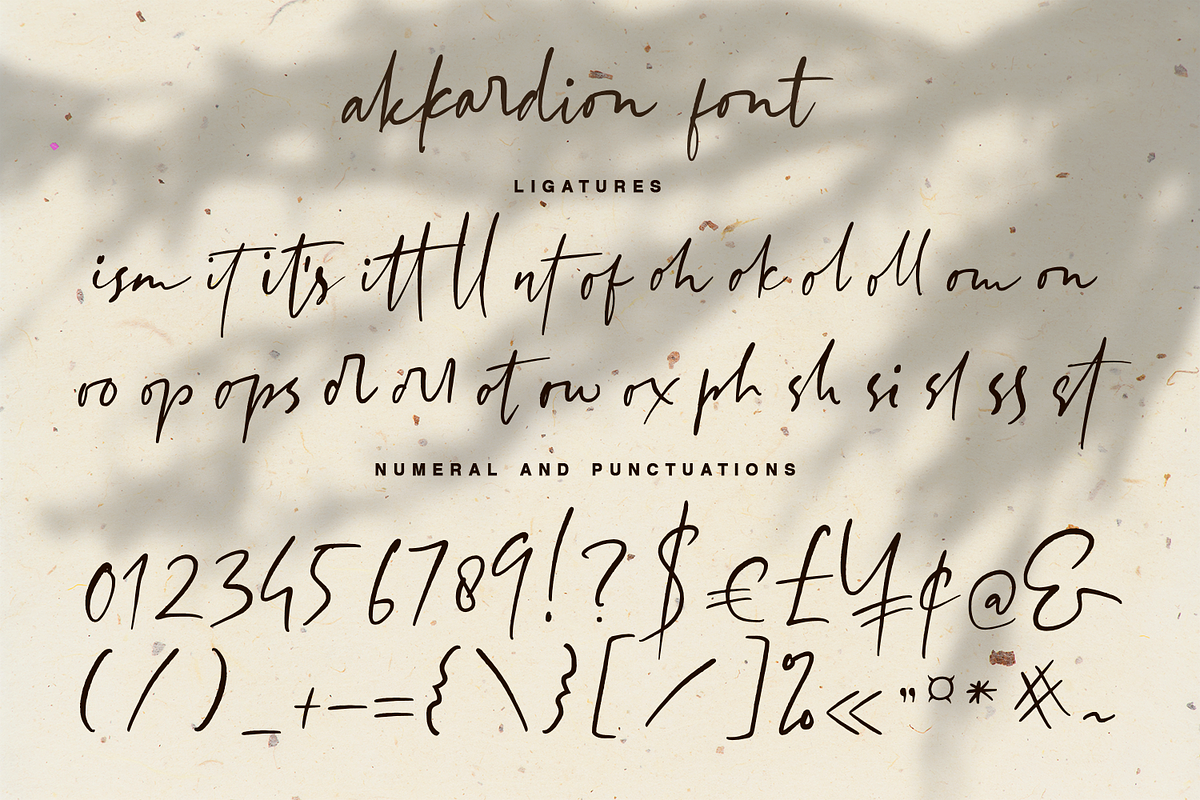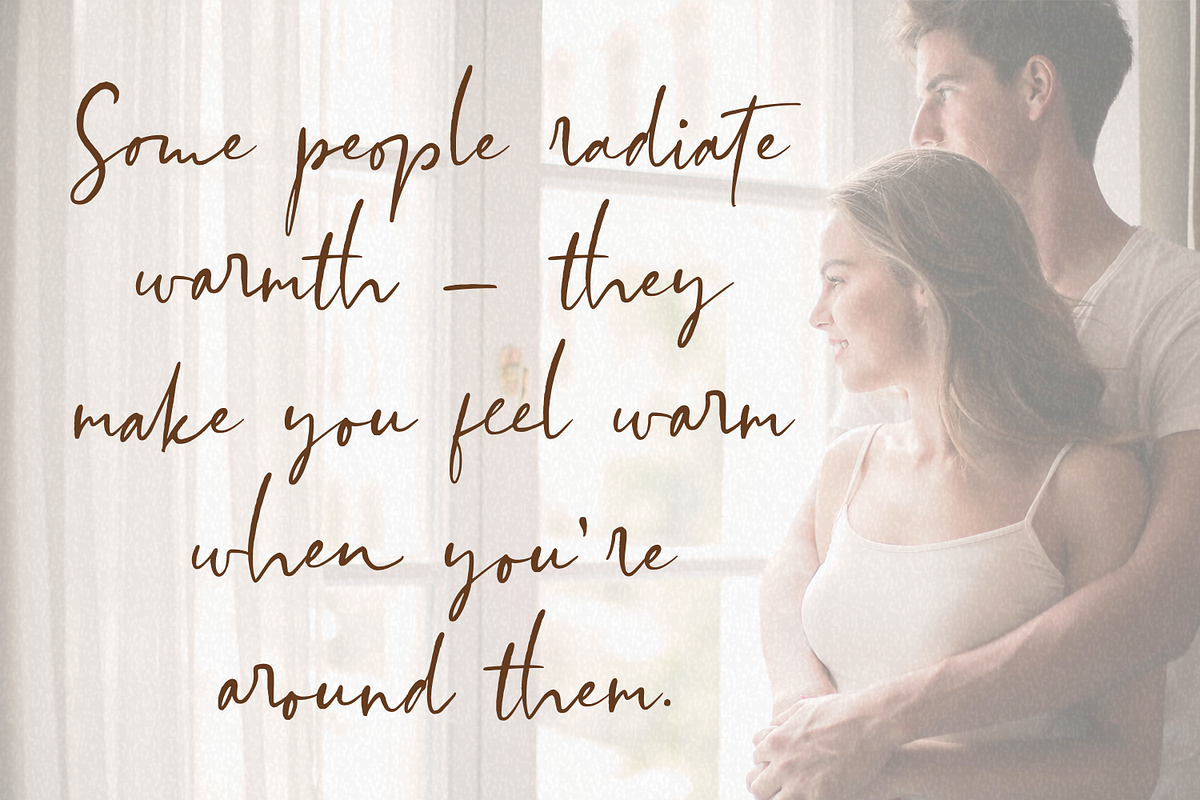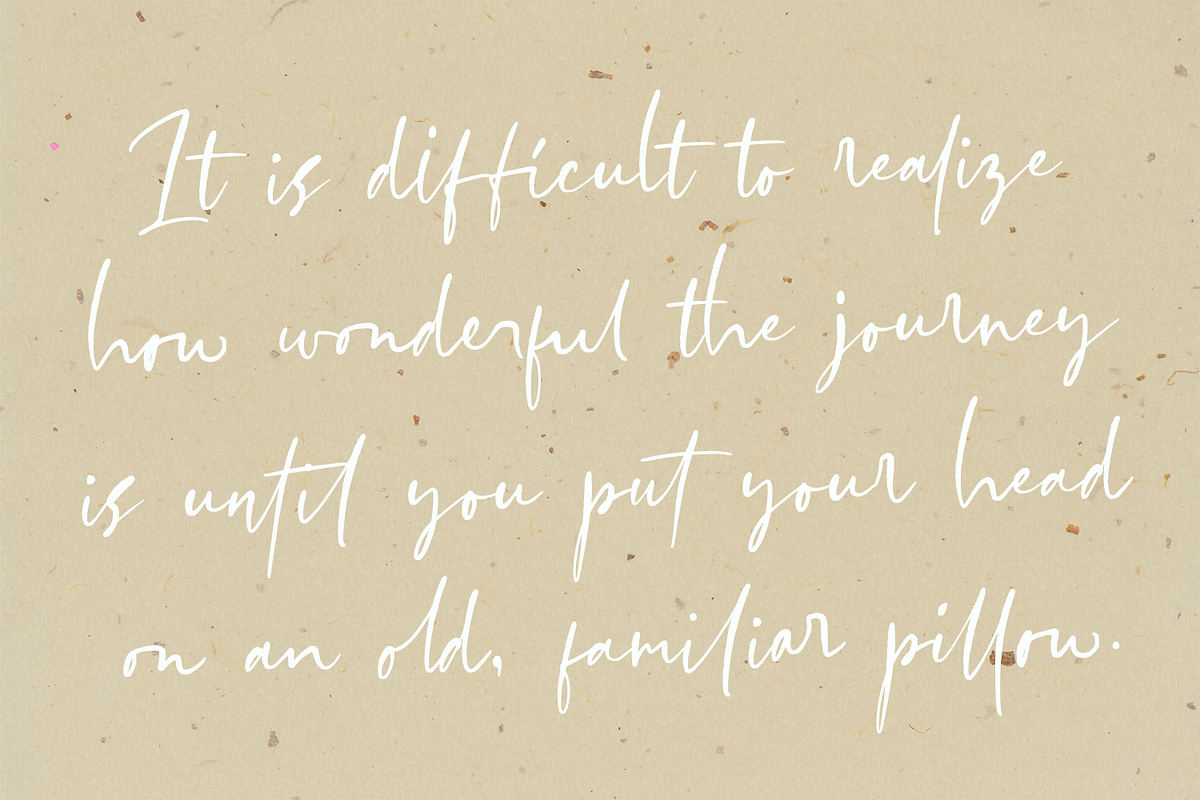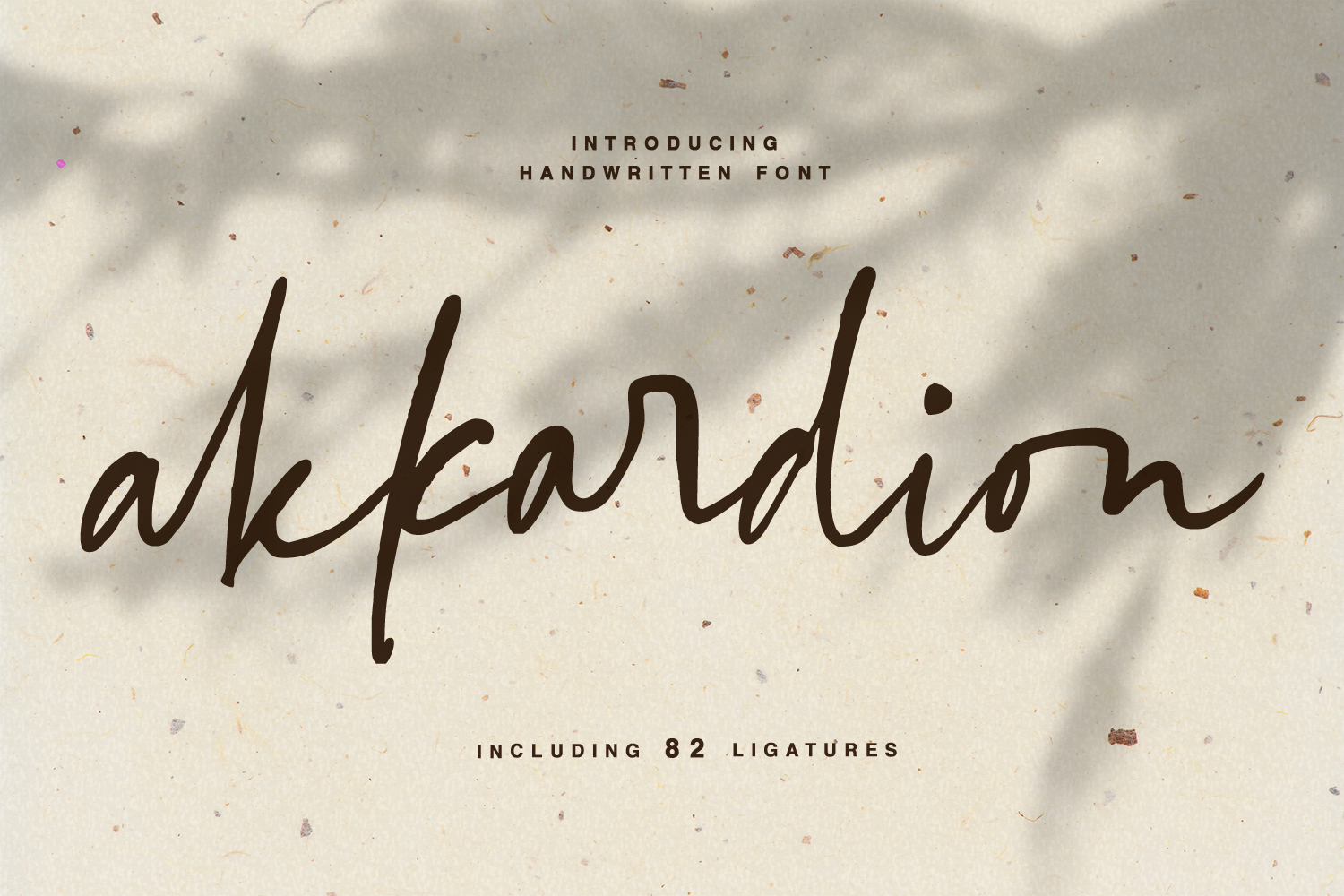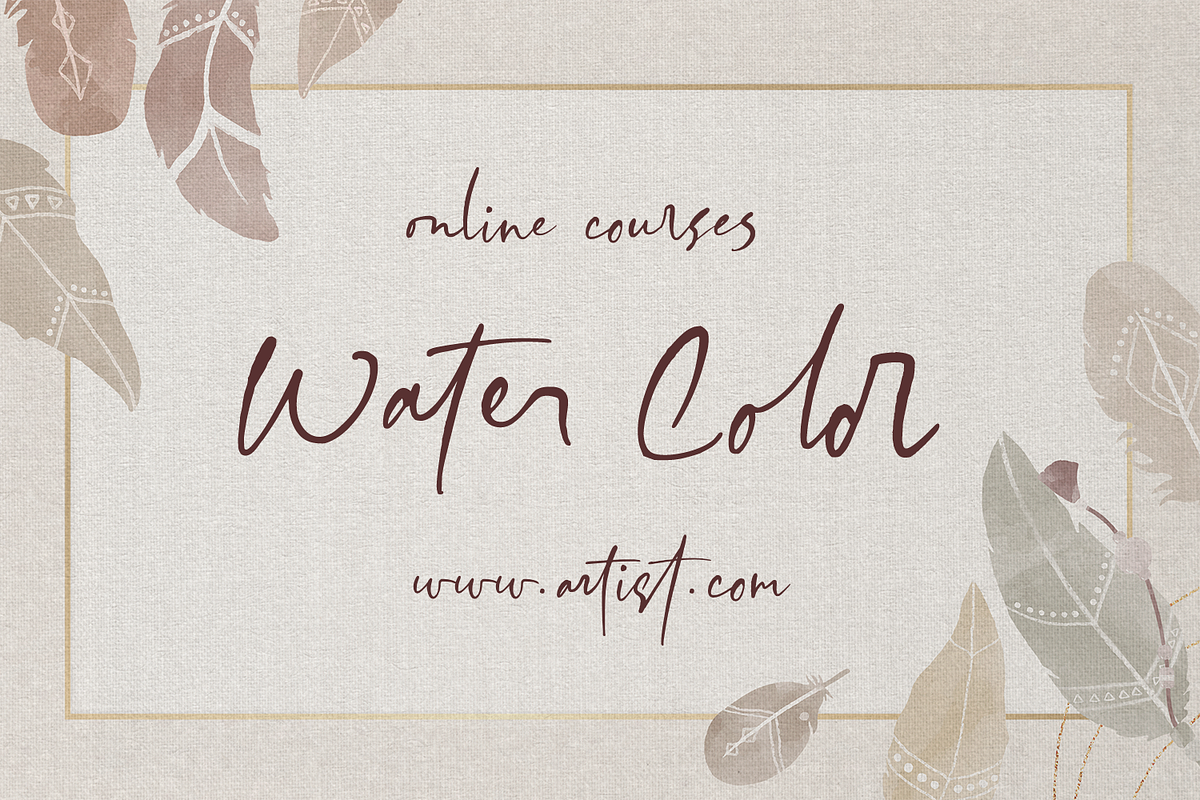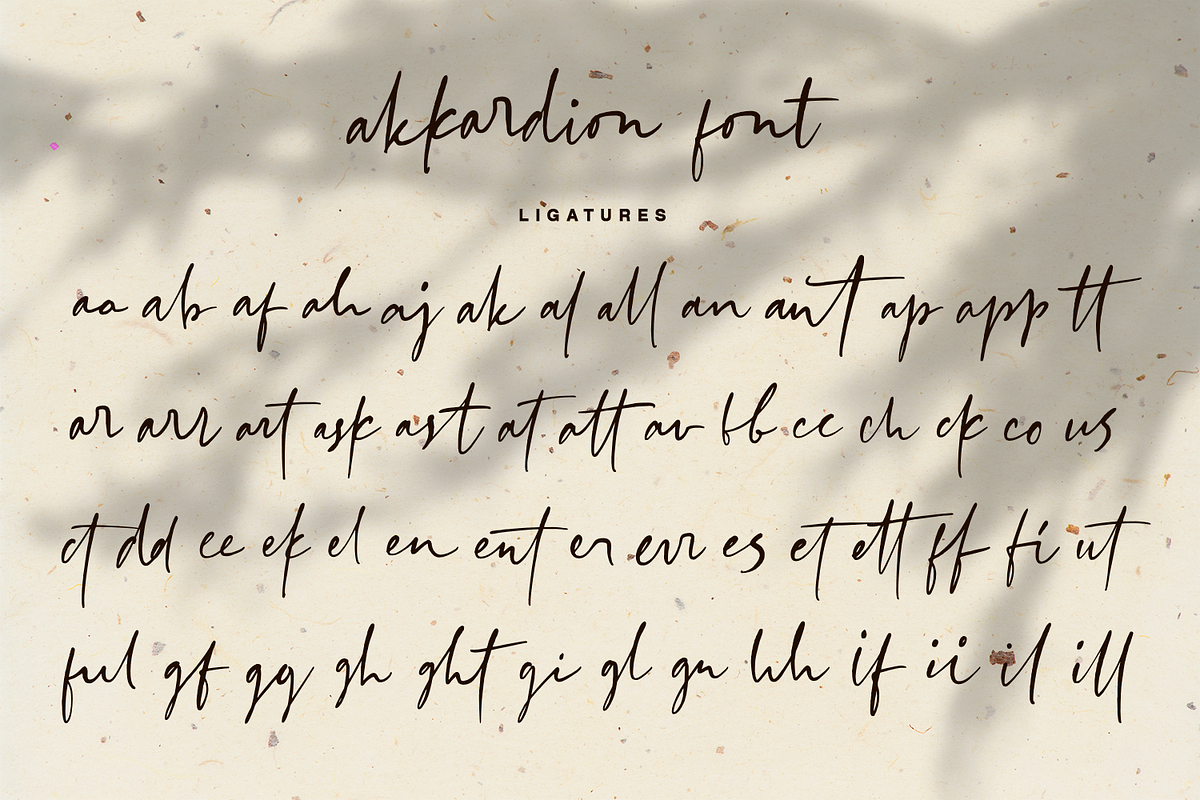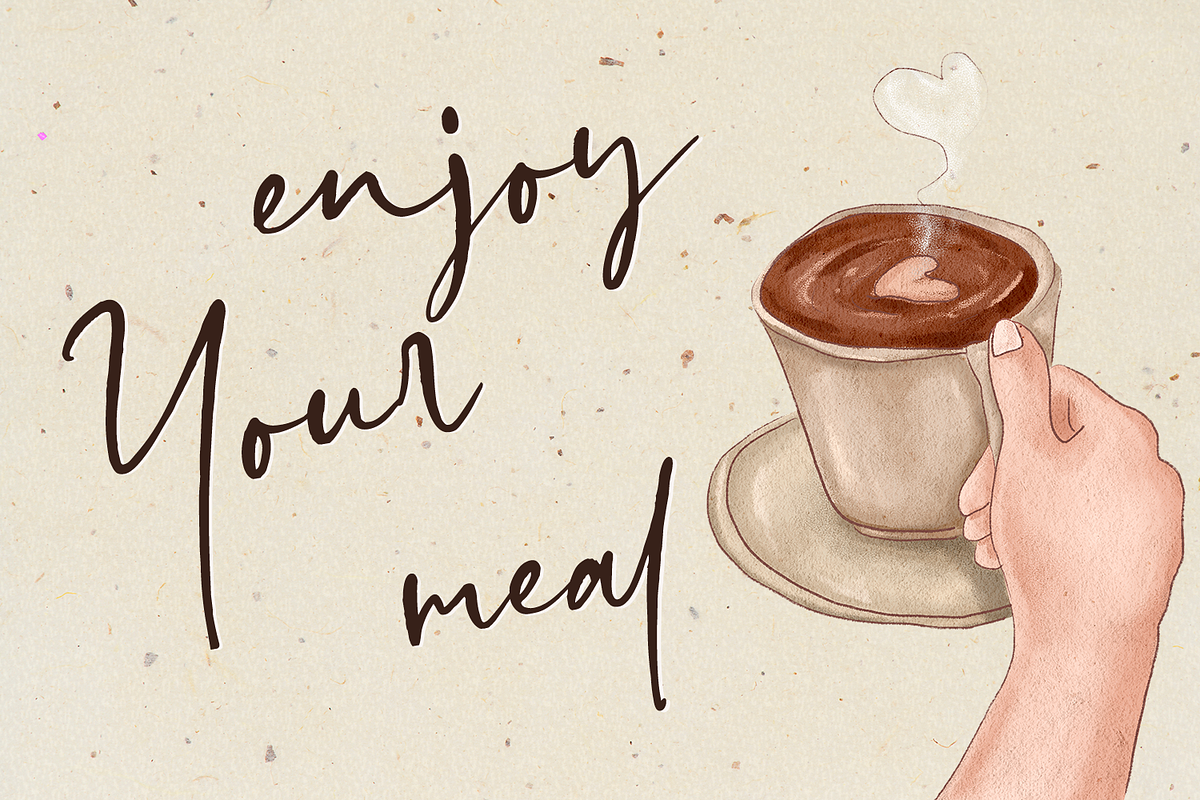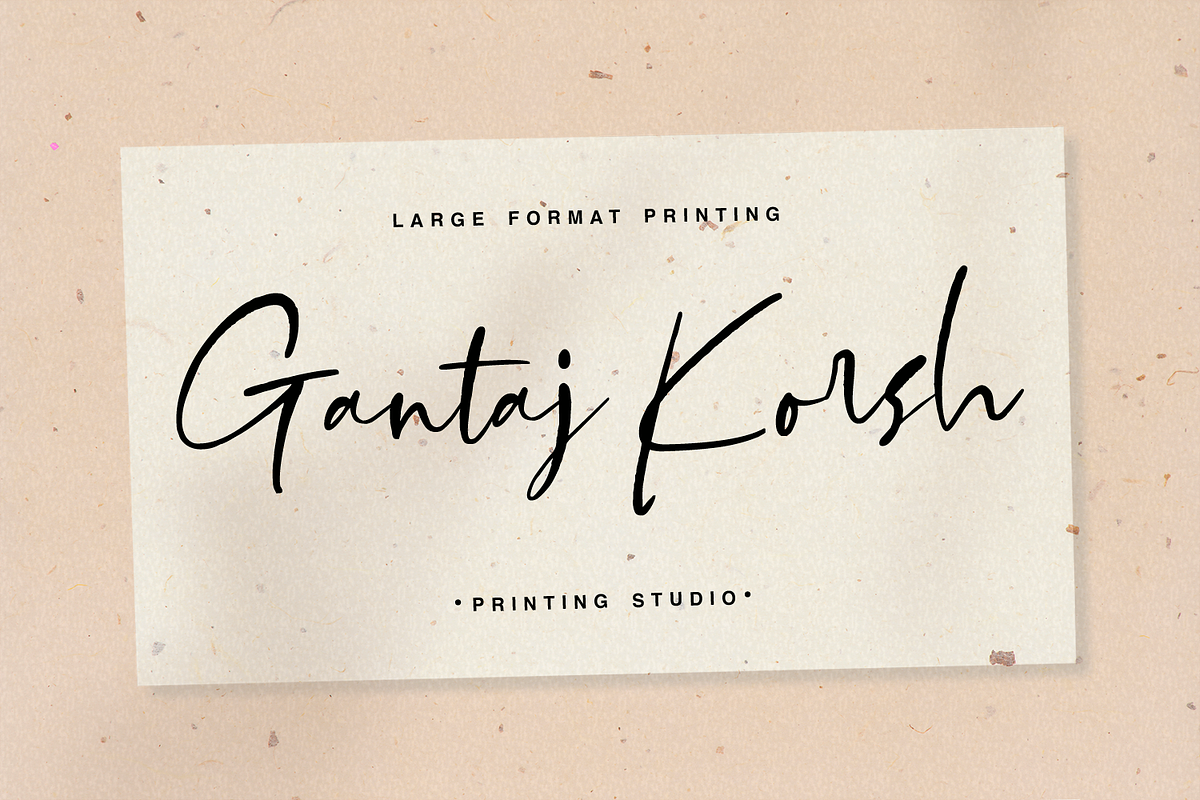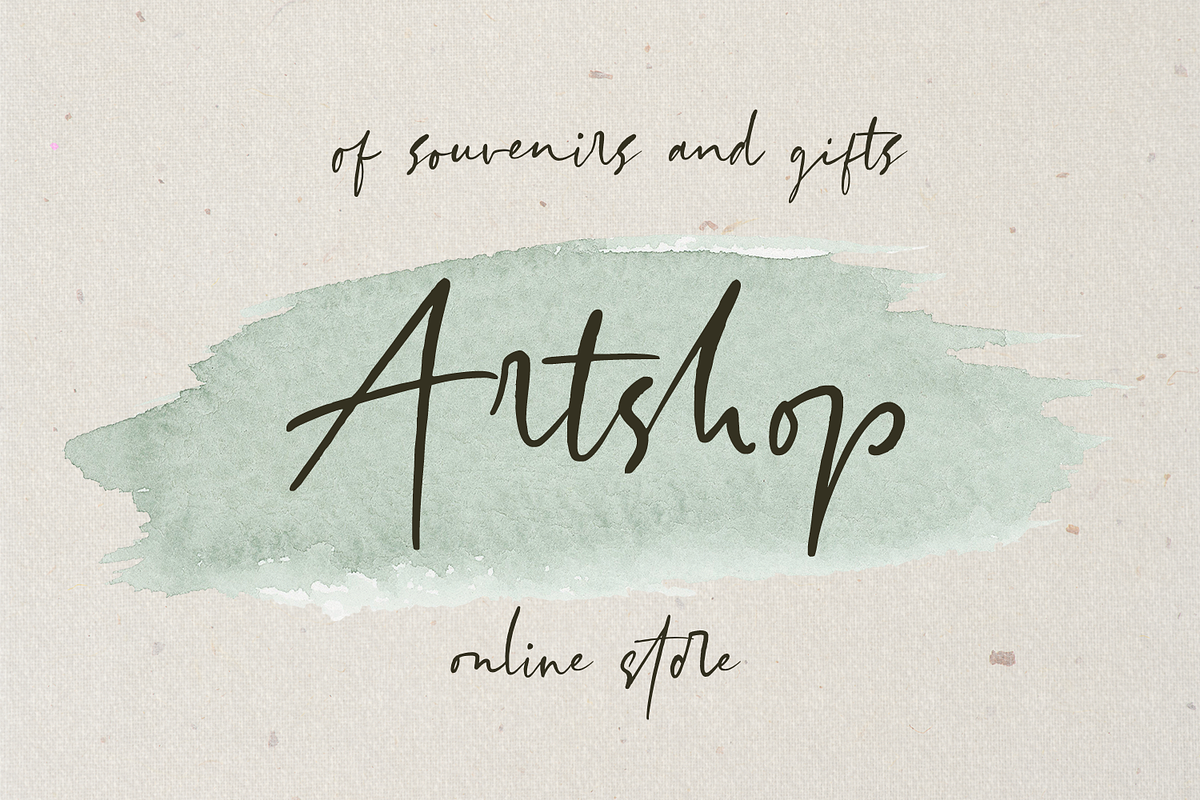
akkardion handwritten font
akkardion - a new fresh handmade calligraphy font.
Very suitable for greeting cards, branding materials, business cards, quotes, posters, and more!This font are perfect for wedding postcard. Or you can create perfect and unique design of your logo, blog, stationery, marketing, magazines and more :)
Ligatures , Alternates Multilingual characters (AÀÁÂÃÄÅCÇDÐEÈÉÊËIÌÍÎÏNÑOØÒÓÔÕÖUÙÜÚÛWYÝŸŸ ÆŒßÞàáâãäåæçèéêëìíîïðñòóôõöøùúûüýÿ)